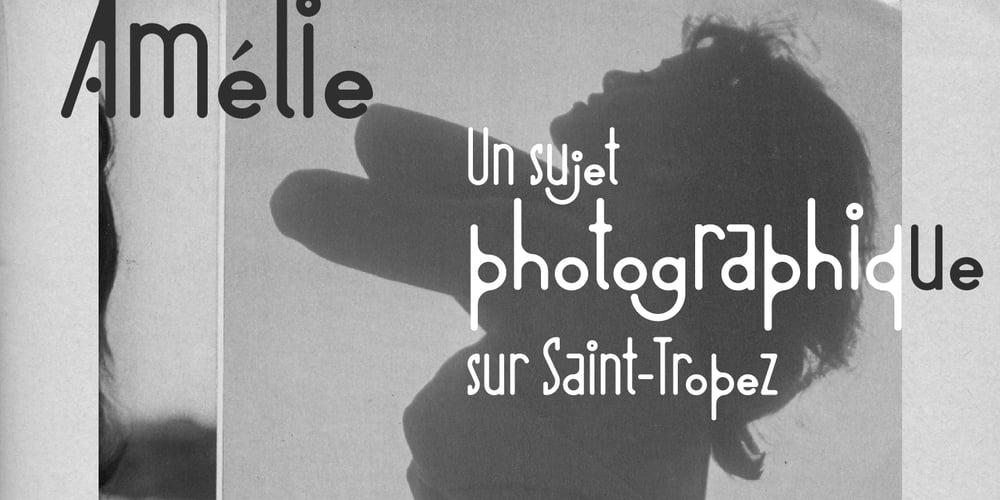
BD Barbeaux
BD Barbeaux font
BD Barbeaux Font Family was designed by Lorenz (Lopetz) Gianfreda and published by Typedifferent. BD Barbeaux contains 2 styles and family package options. BD Barbeaux is a condensed typeface, chic and fashionable with a touch of Art Nouveau. BD Barbeaux Numérique version features rounded corners. The BD Barbeaux fonts are great for fashion and lifestyle related headlines in blogs and magazines.